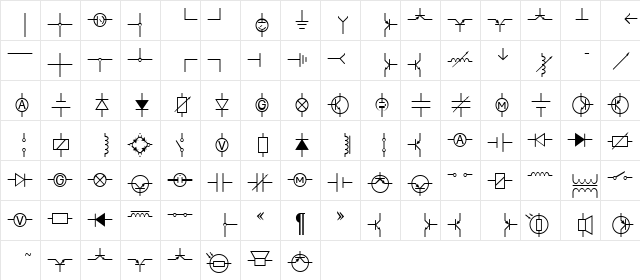
PhysElec Becker Normal
Design Context for PhysElec Becker
PhysElec Becker is a composed and adaptable typeface that performs quietly and consistently across a wide range of design contexts.